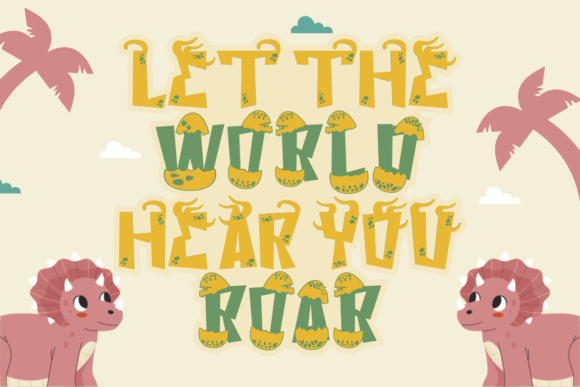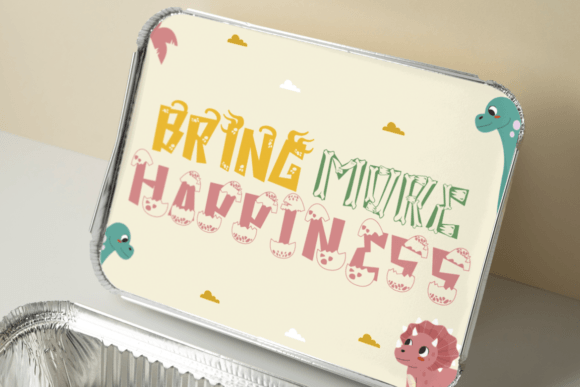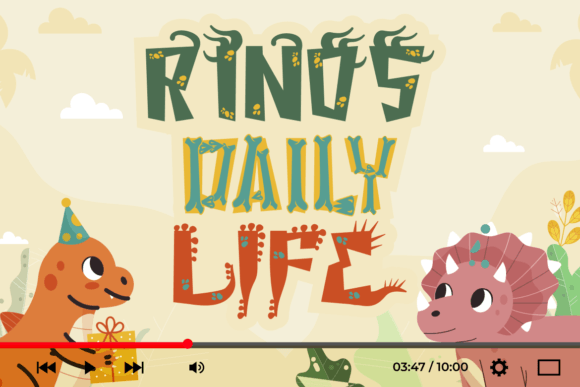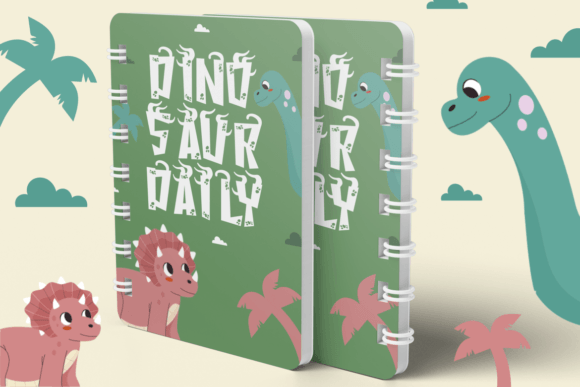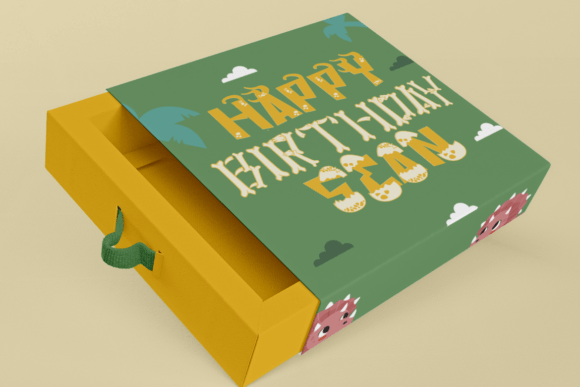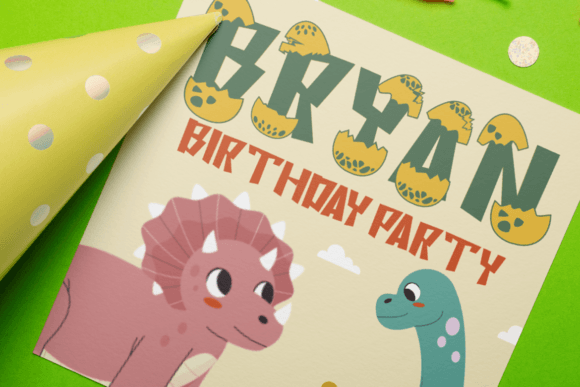
Unleash the Prehistoric Charm of Carnotaurus – Dino Font
Have you ever been in the middle of a design project, and suddenly, you just can’t seem to find the right font? I recall a particularly frustrating moment when I was working on a children’s book project. My client wanted a font that was playful, fun, and would appeal to kids. I scoured the internet, tried out countless fonts, but nothing seemed quite right. That was until I stumbled upon the Carnotaurus – Dino Font. It was like a breath of fresh air! The bold, playful, and imaginative typeface instantly captured the essence of what I was looking for.
A Delightful Blend of Fun and Creativity
The Carnotaurus – Dino Font is more than just a font; it’s an experience. Each letter is carefully crafted with decorative elements that capture the essence of the dino theme. The result is a delightful blend of fun and creativity that’s perfect for designers, crafters, and creative hobbyists alike. Whether you’re working on a logo, branding, invitations, packaging, posters, or business materials, this font adds a touch of playfulness to any project.
What I Love About Carnotaurus – Dino Font
• ✨ Playful and imaginative design: The font’s bold display characters are sure to grab attention and leave a lasting impression.
• ✅ Perfect for kids and adults alike: The dino theme is universally loved, making it an excellent choice for projects targeting a wide audience.
• ✅ Decorative elements: The font’s decorative elements add a touch of personality to any project, making it stand out from the crowd.
While the Carnotaurus – Dino Font is an excellent choice for many projects, there are a few quirks to be aware of:
• ⚠️ Limited use in formal contexts: The font’s playful nature makes it less suitable for formal or professional projects that require a more serious tone.
• 🤔 Glyph limitations: Some users have reported that the font could benefit from additional glyphs, particularly for non-English languages.
The Designer Inspiration Behind Carnotaurus – Dino Font
The Carnotaurus – Dino Font was inspired by the prehistoric era and the fascination with dinosaurs that many people share. The designer wanted to create a font that would capture the essence of this era and bring a touch of playfulness to design projects. The result is a font that’s both fun and imaginative, perfect for designers, crafters, and creative hobbyists alike.
What is the Carnotaurus – Dino Font? The Carnotaurus – Dino Font is a playful and imaginative typeface that’s perfect for design projects that require a fun and creative touch.
Is the Carnotaurus – Dino Font suitable for formal projects? No, the font’s playful nature makes it less suitable for formal or professional projects that require a more serious tone.
Is the Carnotaurus – Dino Font available in different languages? The font may not have glyphs for non-English languages, so it’s best to check the font’s specifications before using it for multilingual projects.